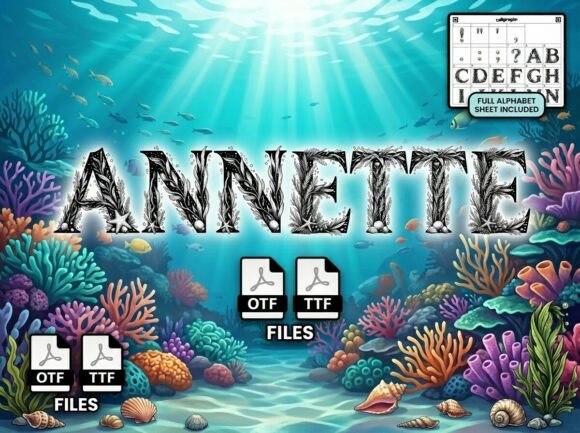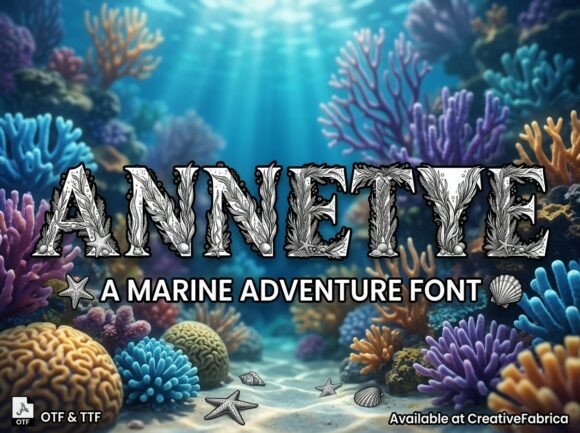
Discover the Enchanting World of Annette: An Underwater-Botanical Display Font
I’ll never forget the design struggle I faced when working on a luxury coastal resort identity project. My client wanted a font that would transport their audience to an underwater world of mystery and wonder. I scoured the internet, tried countless fonts, but nothing seemed to capture the essence of the ocean floor. That was until I stumbled upon Annette, a breathtaking display font that brings the magic of the sea to the surface.
A Personal Review of Annette
As a designer, I’m always on the lookout for fonts that can elevate my projects and make them stand out. Annette has become one of my go-to fonts, and here’s why:
- ✨ Unique and eye-catching design: Annette’s bold, classic letterforms intricately woven with flowing sea kelp, delicate shells, and hidden starfish make it a true showstopper.
- ✅ High-detail line art: The font’s attention to detail is impressive, making it perfect for projects that require a touch of sophistication.
- 🌟 Underwater-botanical soul: Annette’s oceanic inspiration sets it apart from other fonts, making it ideal for projects related to ocean conservation, coastal resorts, or ocean-inspired branding.
While Annette is an amazing font, it’s not without its quirks:
- 🤔 Glyph overload: With so many intricate details, it can be overwhelming to navigate the glyph panel. Take some time to explore and familiarize yourself with the available glyphs.
- ⚠️ Legibility at small sizes: Annette is best used at larger sizes (30px+). At smaller sizes, the details may get lost, and legibility may suffer.
The Story Behind Annette
Annette was inspired by the mysterious world of the ocean floor. The designer, a self-proclaimed ocean enthusiast, wanted to capture the beauty and complexity of underwater life in a font. The result is a unique, eye-catching typeface that brings the magic of the sea to the surface.
| Font Name | Annette Font |
| Author | Creativeguru |
| What is Annette best used for? | Annette is perfect for independent aquarium branding, luxury coastal resort identities, environmental conservation graphics, and enchanting “ocean-fantasy” social media headers. |
| Is Annette suitable for body text? | No, Annette is best used for display purposes, such as headings or titles. Its intricate details and flowing design make it less suitable for body text. |
| Is Annette available in different weights or styles? | Annette comes in a single weight, but its OpenType features and glyphs offer a range of stylistic alternates and variations to help you customize your design. |